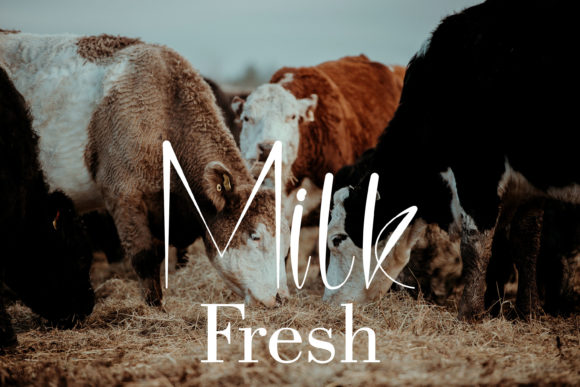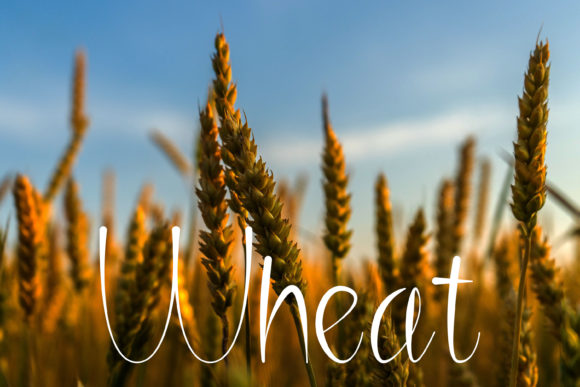
Introducing Farmlands Font: A Playful Display Font for Creative Designs
Are you a designer or crafter looking for a unique and playful font to elevate your creative projects? Look no further than Farmlands Font, a charming display font that’s perfect for a wide range of applications. In this article, we’ll explore the features and benefits of Farmlands Font, and how it can add a touch of personality to your designs.
What is Farmlands Font?
Farmlands Font is a playful display font that boasts a unique stroke glyphs design. Its distinctive style makes it stand out from more traditional fonts, adding a touch of whimsy and fun to any project. Whether you’re working on a logo, advertisement, social media post, or product packaging design, Farmlands Font is sure to make your design pop.
Key Features of Farmlands Font
- Unique Stroke Glyphs: Farmlands Font features a one-of-a-kind stroke glyphs design that sets it apart from other fonts.
- Playful and Whimsical: This font has a fun and carefree vibe that’s perfect for designs that need a playful touch.
- Highly Versatile: Farmlands Font can be used for a wide range of applications, from displays and logos to social media posts and product packaging designs.
- Easily Readable: Despite its playful design, Farmlands Font is still highly readable, making it perfect for use in various design projects.
Uses for Farmlands Font
Farmlands Font is an incredibly versatile font that can be used for a wide range of design projects, including:
- Displays: Use Farmlands Font to create eye-catching displays that grab attention.
- Logos: Create a unique and memorable logo for your brand with Farmlands Font.
- Advertisements: Add a playful touch to your ads with Farmlands Font.
- Social Media Posts: Use Farmlands Font to create engaging and shareable social media posts.
- Product Packaging Designs: Add a personal touch to your product packaging with Farmlands Font.
- Labels: Create custom labels with Farmlands Font for a unique and eye-catching design.
- Stationery: Use Farmlands Font to create custom stationery, such as business cards and letterheads.
- Watermarks: Add a touch of personality to your watermarks with Farmlands Font.
- Greeting Cards: Create custom greeting cards with Farmlands Font for a special touch.
- Websites: Use Farmlands Font to add a playful touch to your website design.
Why Choose Farmlands Font?
With so many fonts available, why choose Farmlands Font? Here are just a few reasons:
- Unique Design: Farmlands Font has a one-of-a-kind design that will set your designs apart from the rest.
- Highly Versatile: This font can be used for a wide range of applications, making it a great addition to any designer’s toolkit.
- Easily Readable: Farmlands Font is highly readable, making it perfect for use in various design projects.
- Playful and Whimsical: This font has a fun and carefree vibe that’s perfect for designs that need a playful touch.
Farmlands Font is a playful display font that’s perfect for designers and crafters looking to add a unique touch to their creative projects. With its distinctive stroke glyphs design, highly versatile nature, and easily readable style, Farmlands Font is sure to become a favorite in your design toolkit. Whether you’re working on a logo, advertisement, social media post, or product packaging design, Farmlands Font is the perfect choice.